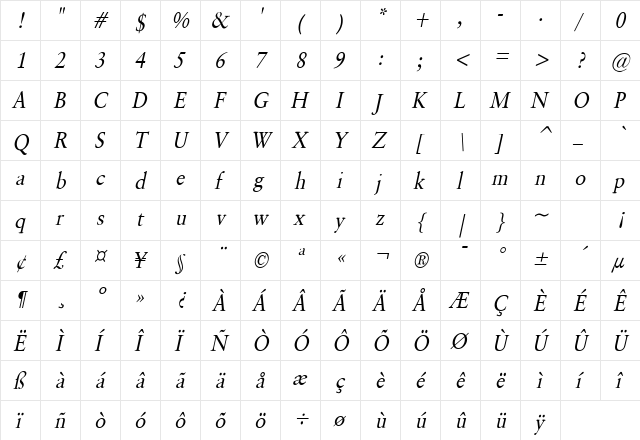
Garrick Condensed Italic Font Preview
Design Context for Garrick Condensed Typeface
Garrick Condensed is a composed and adaptable typeface that performs quietly and consistently across a wide range of design contexts. The slanted form adds forward momentum and visual energy. The condensed width makes it efficient for tight spaces without sacrificing legibility.
Pro Tip: Try Garrick Condensed for annotation and caption copy alongside an upright companion — the contrast in angle creates a dynamic but ordered typographic system.